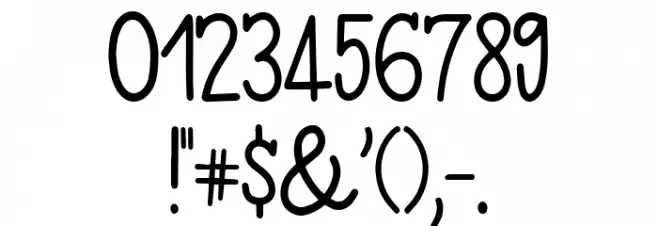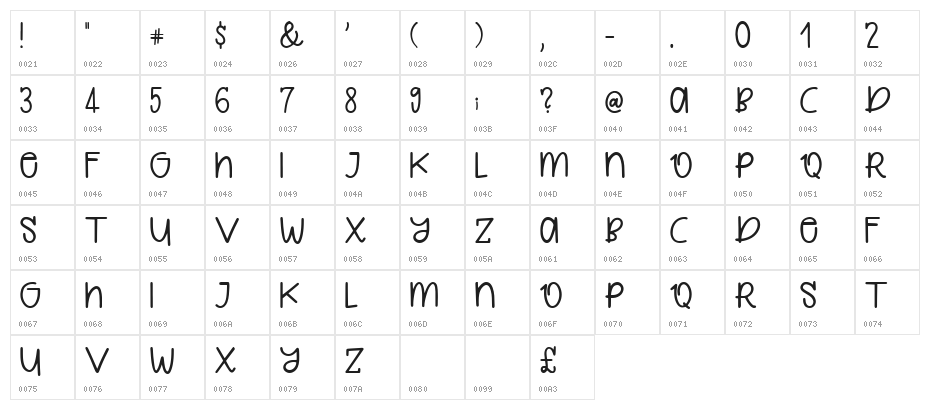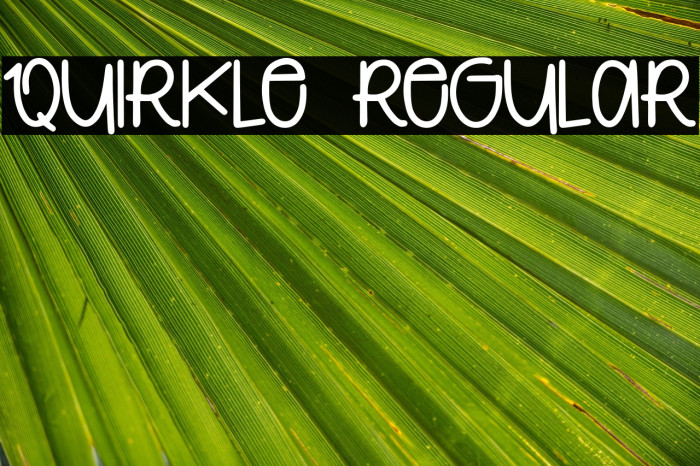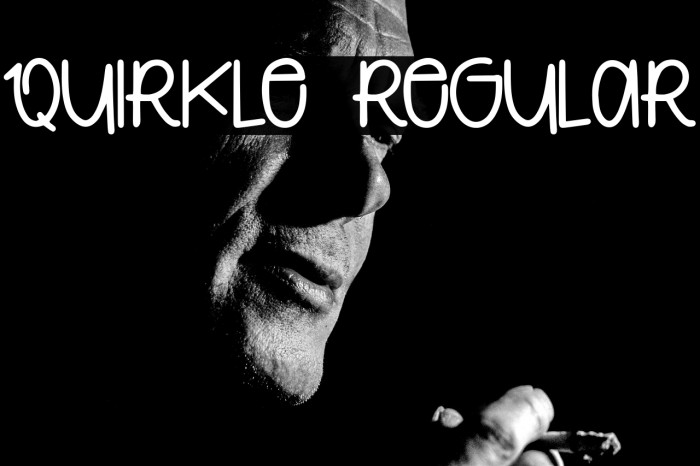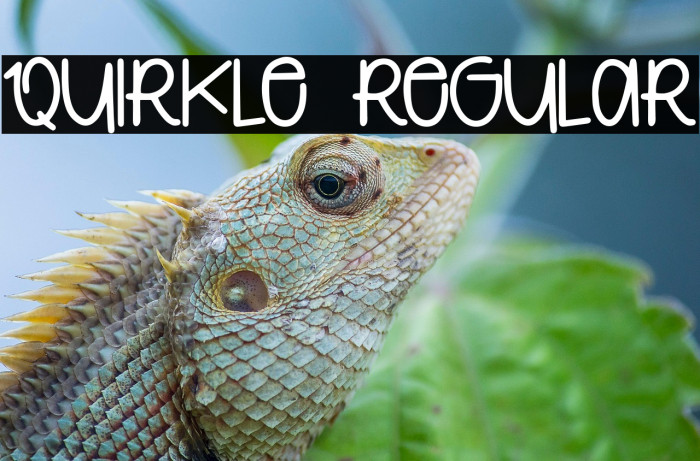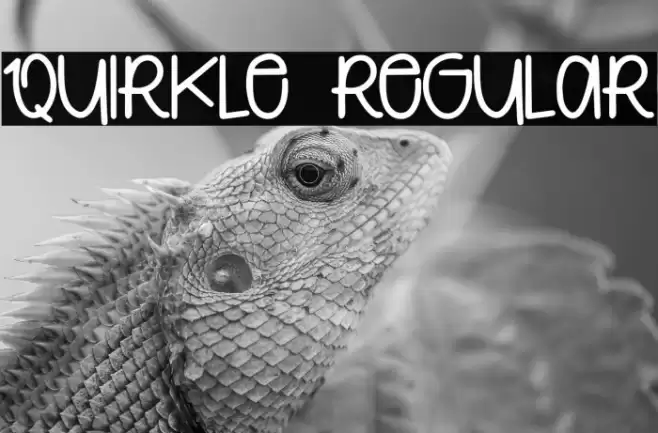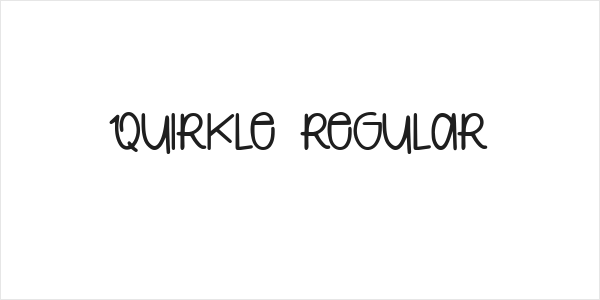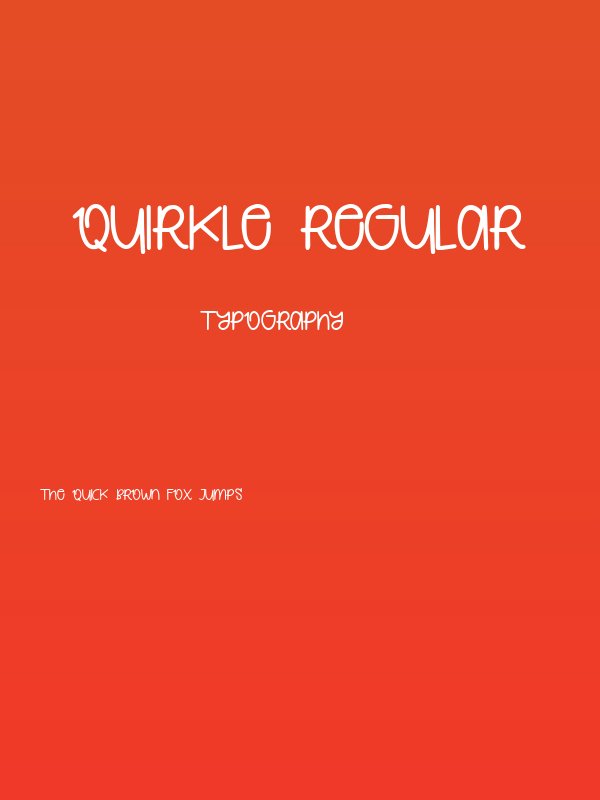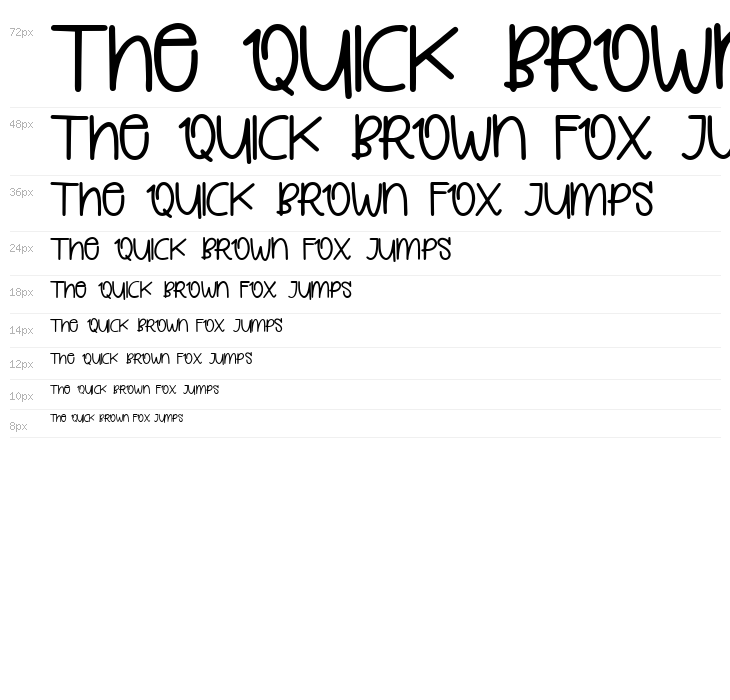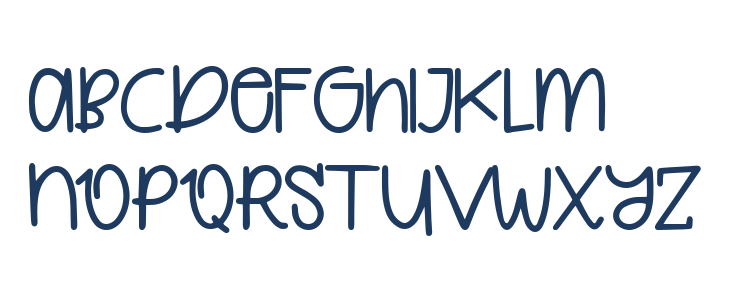
Quirkle Regular Font
Quirkle Regular Description
This playful and whimsical font features a handwritten style with rounded edges and a casual, friendly appearance. The characters are slightly irregular, giving it a charming, informal look. The uppercase and lowercase letters maintain a consistent style, with a slight tilt that adds to its quirky personality. The numbers and special characters are designed to match the overall aesthetic, making it versatile for various creative projects. Its unique style makes it stand out, perfect for adding a personal touch to any design.
| Proposed Projects | Ideal for children's books, greeting cards, playful branding, and social media graphics. |